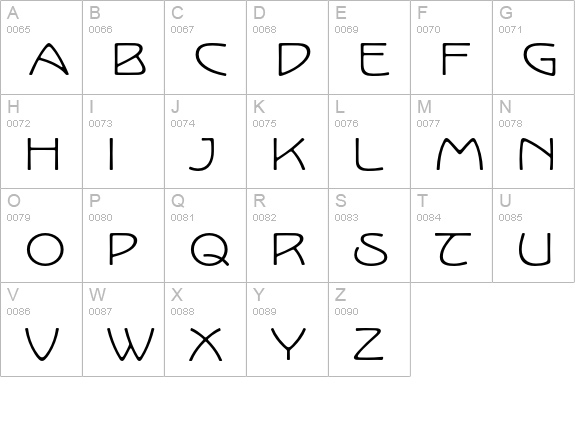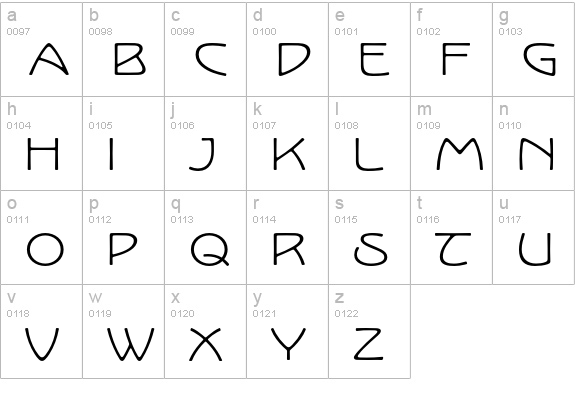
Kolo LP Wide Font Details
Kolo LP Wide is a distinctive, extended-width variant in the Kolo typeface family \xE2\x80\x94 well suited to design and typography projects.
Kolo LP Wide font is a modern and stylish typeface that exudes elegance and sophistication. With its clean lines and wide letterforms, this font is perfect for a variety of design projects, from branding to editorial layouts. The generous spacing between characters gives Kolo LP Wide font a distinctive and eye-catching appearance. What makes Kolo LP Wide font even more appealing is that it is available for free download at FontsMarket.com. This means that you can easily access and use this beautiful typeface in your projects without any cost. Whether you're a designer looking to add a touch of class to your work or a business owner in need of a new font for your branding, Kolo LP Wide font is a great choice that won't break the bank. Download it today and elevate your designs with this stunning font.